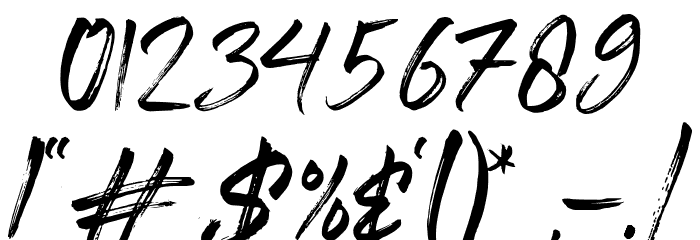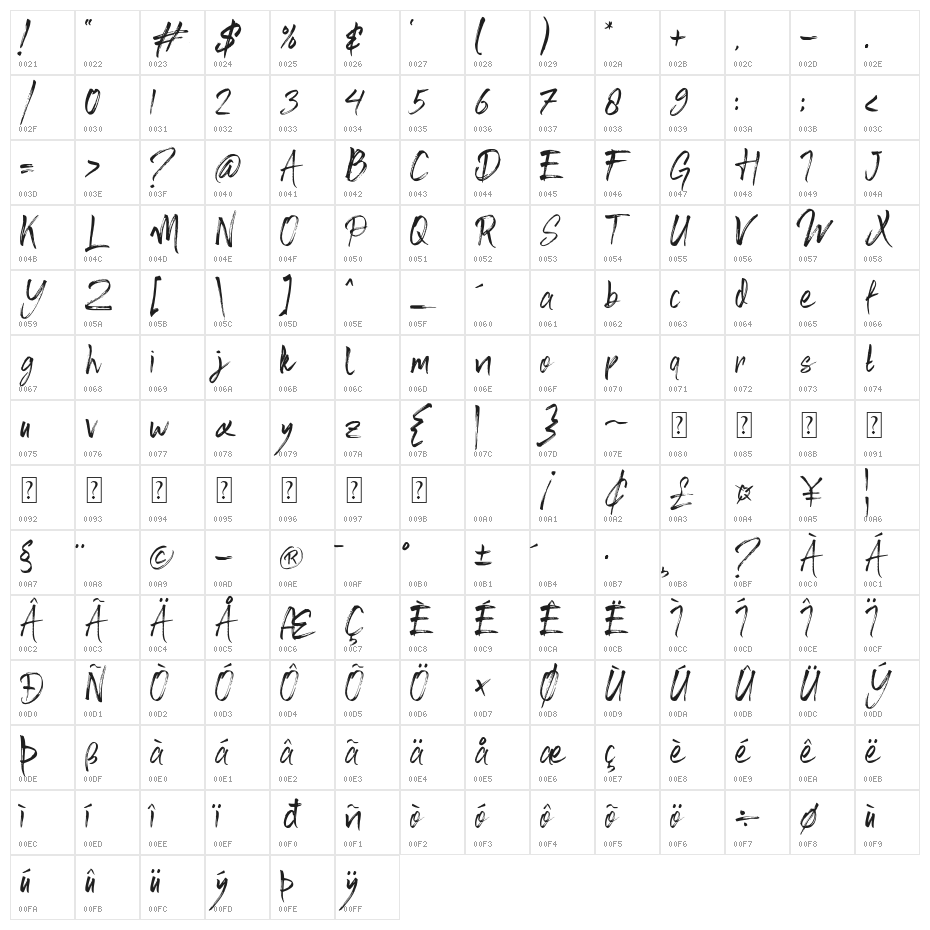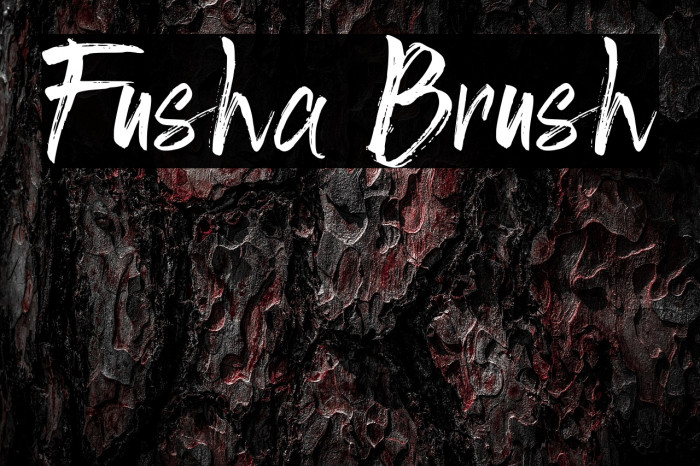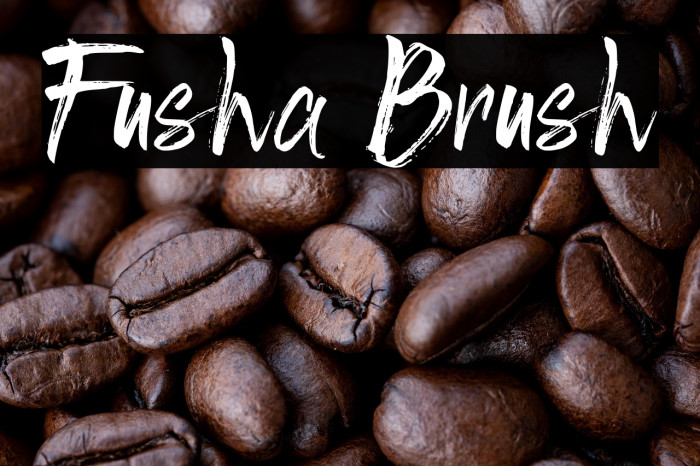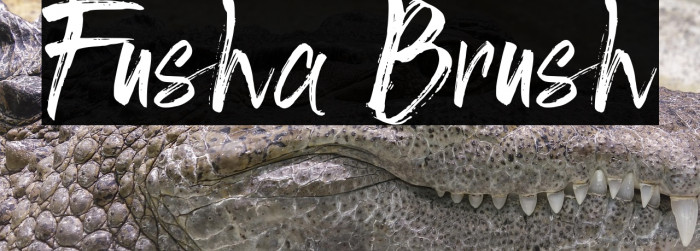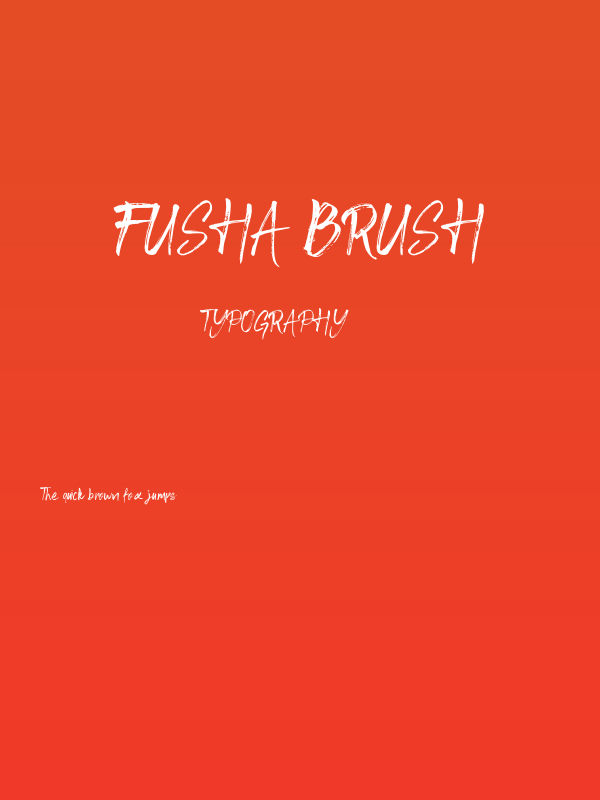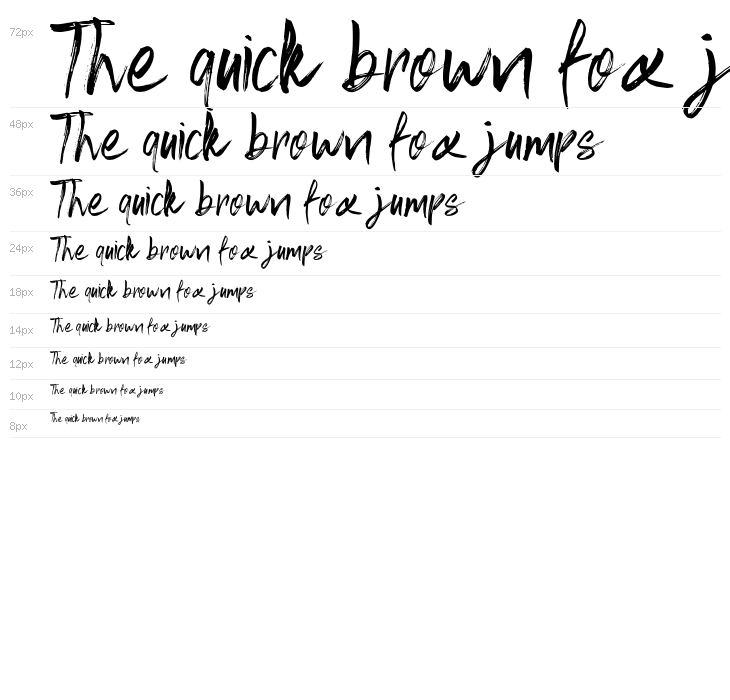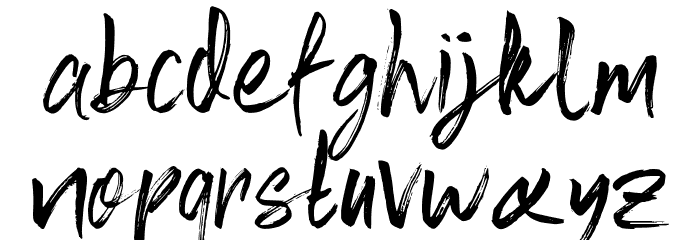
Fusha Brush Font
Fusha Brush Description
This font exudes a dynamic and expressive style, characterized by its brush-like strokes that convey a sense of movement and energy. The letters are crafted with varying thicknesses, creating a natural and organic feel. Uppercase and lowercase letters maintain a consistent flow, while numbers and special characters integrate seamlessly into the overall design. The font's artistic flair makes it suitable for projects that require a bold and creative touch, such as branding, posters, and artistic designs. Its unique appearance ensures that it stands out, making it a great choice for eye-catching headlines and titles.
| Use Case | Headlines, Logos, Artistic designs |
| Proposed Projects | Ideal for branding, posters, artistic designs, and eye-catching headlines. |